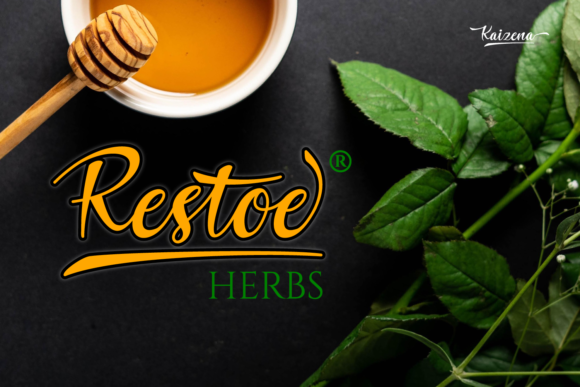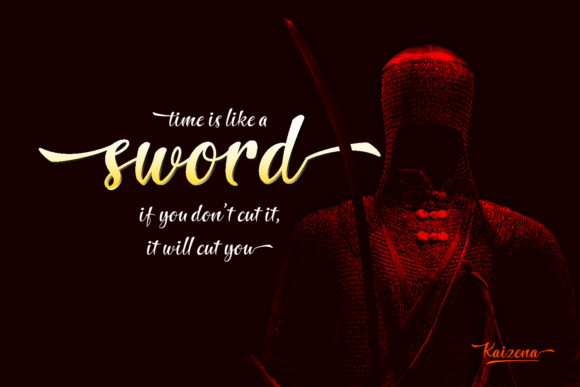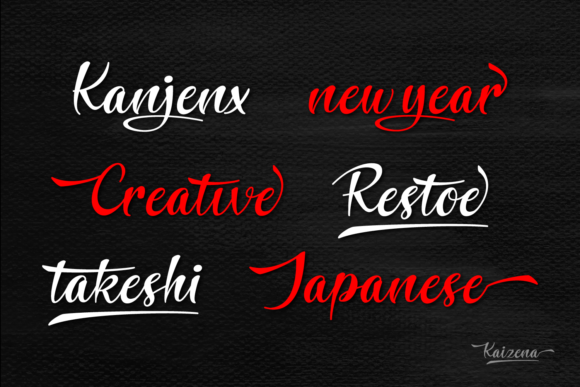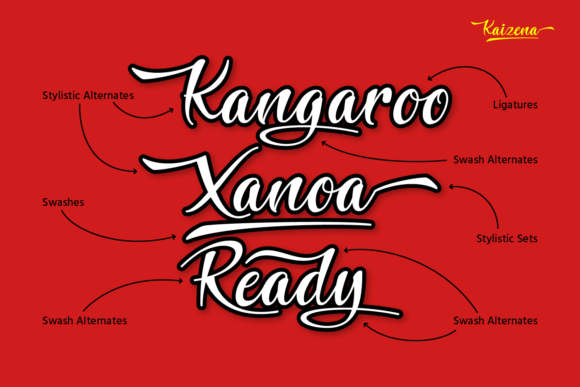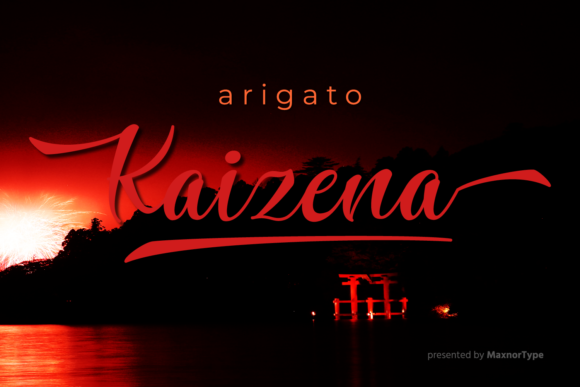
HomeScript FontsKaizena Font Script Fonts Kaizena Font FacebookXPinterestWhatsApp Kaizena Font Poster 2 Kaizena Font Poster 3 Kaizena Font Poster 4 Kaizena Font Poster 5 Kaizena Font Poster 6 About Kaizena Font Kaizena is a cool and fun handwritten font with a bold style. DOWNLOAD ON CREATIVE FABRICAThis font is sold and delivered by Creative Fabrica. Font Canyon may earn a commission if you buy through this link. People also explored Monogram Jack Font Cadence Audrina Font Easter Font Diana Rough Font Cinnamon Font Brilliant Signature Font Peachful Font Sweet Sugar Plums Font Cleopatra Font 337 0 TagsKaizena Font Previous articleFribourg FontNext articleTwilight Zone Font LEAVE A REPLY Cancel reply Comment: Please enter your comment! Name:* Please enter your name here Email:* You have entered an incorrect email address! Please enter your email address here Website: Save my name, email, and website in this browser for the next time I comment. Personal Use Free Rookie Mastering Personal Use Free Read more about this font Mixed Artistry Personal Use Free Read more about this font Dream Personal Use Free Read more about this font Arnprior Personal Use Free Read more about this font BLOG Free Fonts Risk: Why Free Fonts Can Be Dangerous for Designers Free Fonts Risk: Why Free Fonts Can Be Dangerous for Designers Using free fonts is a common practice in web and graphic design. However, the... Top 7 Google Fonts Alternatives for Faster and Privacy-Friendly Web Design (2025) Best Fonts for T-Shirt Design – Top 2025 Picks Free vs Paid Fonts: Why Investing in Premium Fonts Is Worth It